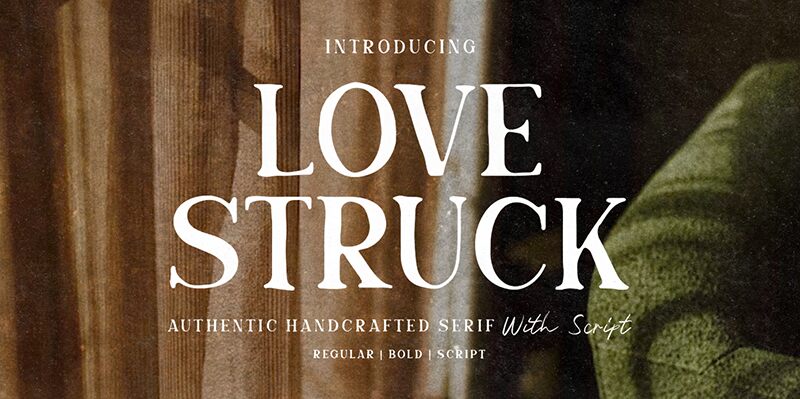
Love Struck font by Letterhend Studio is an eroded display typeface with a classic yet elegant style. Its timeless appearance provides a balance of romantic and traditional features, where every character contributes equally to its refined look. This is an excellent chance to give your projects more attention as the font really stands out when presented within different designs.
Its diverse use cases include labels, packaging, books, video games, posters, banners, flyers/leaflets/brochures, stationery items including invitations and greeting cards. Websites can also benefit from this free display font with everything from headers to logos getting special design treatment audiences will adore.